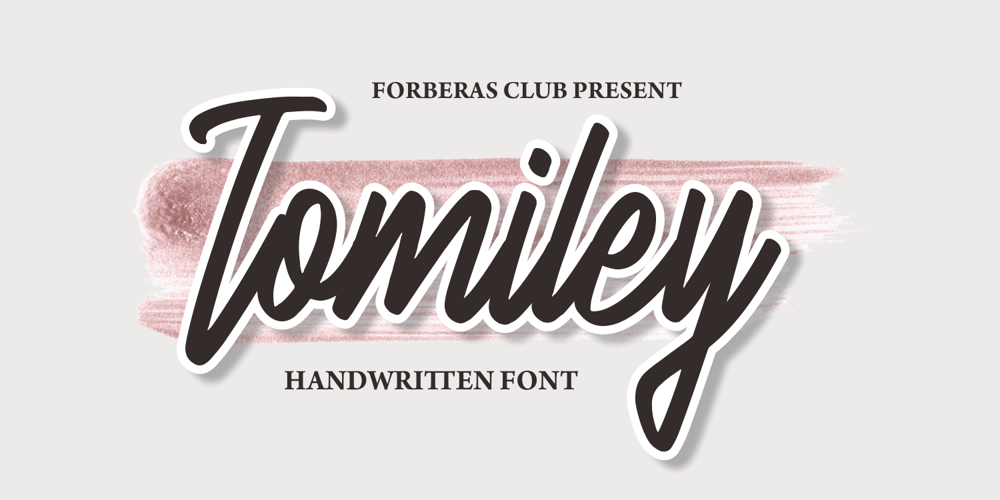
Tomiley
Tomiley font
Tomiley Font Family was designed by ANGGI HERMAWAN and published by Forberas Club. Tomiley contains 1 styles and family package options. Tomiley font create with carefully monoline style. Can be use for wedding party, invitation, memorable moment, love story and many more with special moment.